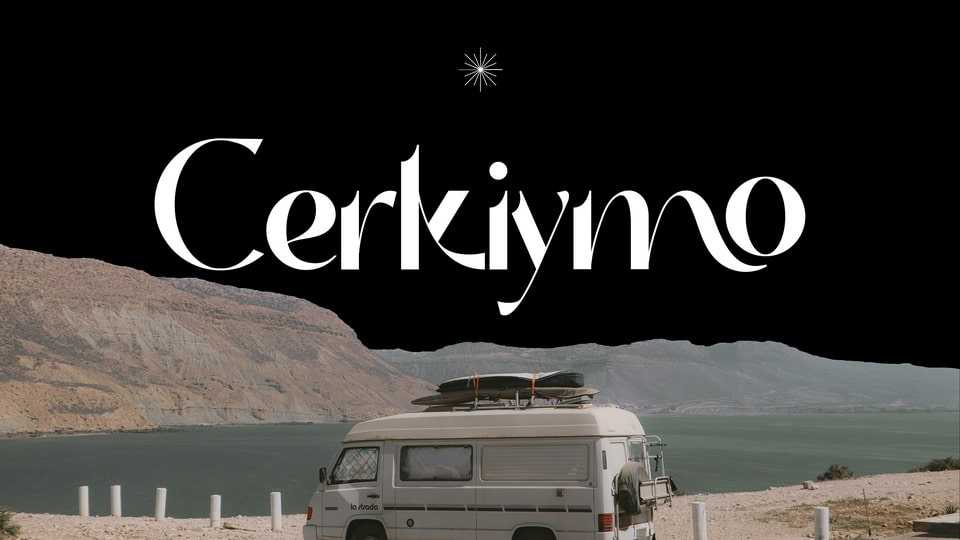
Download Cerkiymo font, an elegant sans serif typeface. With its delicate curves and refined lines, the Cerkiymo font lends an elegant touch to any design, breathing a fresh sense of sophistication into each word.